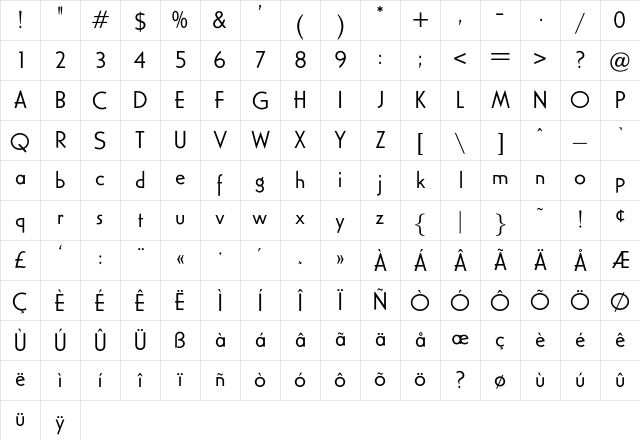
OPTICivet Light
Design Context for OPTICivet
OPTICivet is a composed and adaptable typeface that performs quietly and consistently across a wide range of design contexts. Its slender proportions lend an understated elegance to any composition.